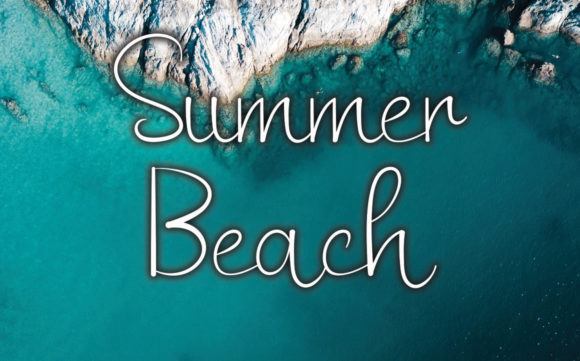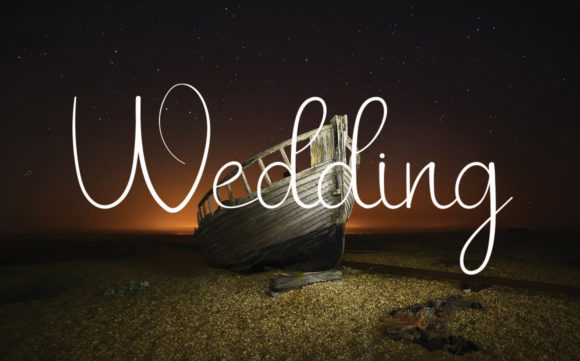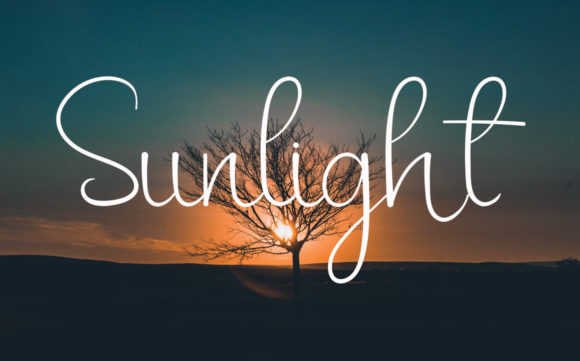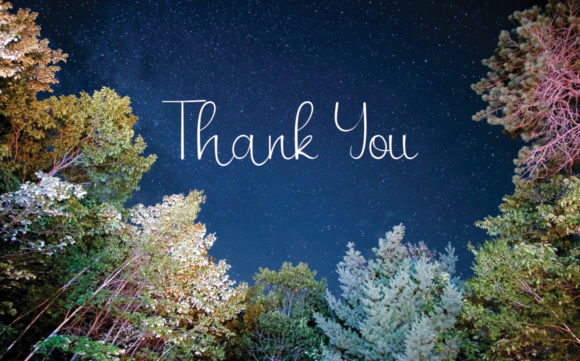
Signature Vintage Font
About Signature Vintage Font
Signature Vintage is a beautiful and refined script font. It has a classy, elegant and modern look that can be used for logos, branding, invitations, stationery, wedding designs, social media posts, and much more!